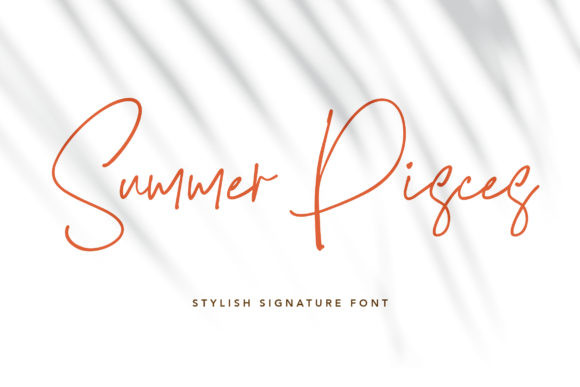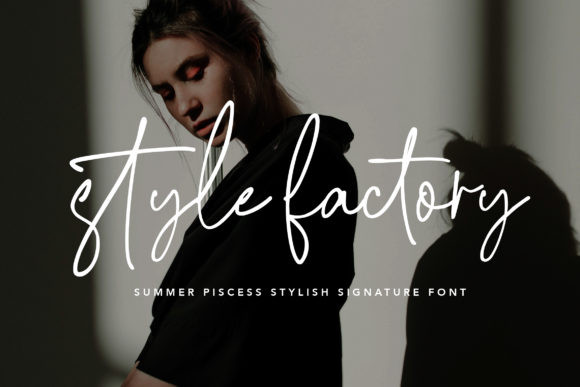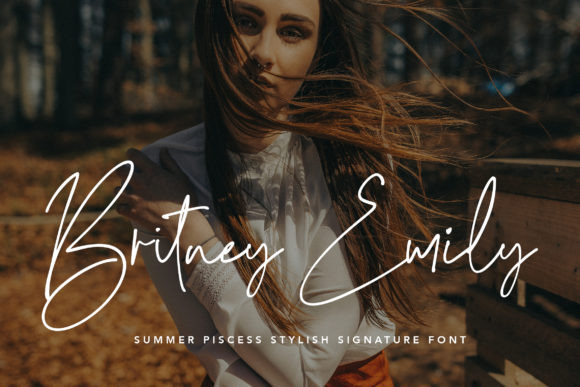
Summer Pisces Font
Summer Pisces is a stylish handwritten font. This amazing typeface is 100% free! It features smooth lines, gorgeous glyphs, and stunning styles. Summer Pisces would perfect for a signature font, wedding invitation, social media posts, advertisements, quoted text, photography, fashion, boutique, and any beauty projects. It’s also a perfect fit for a beauty-themed – or a stylish text overlay to any background image.